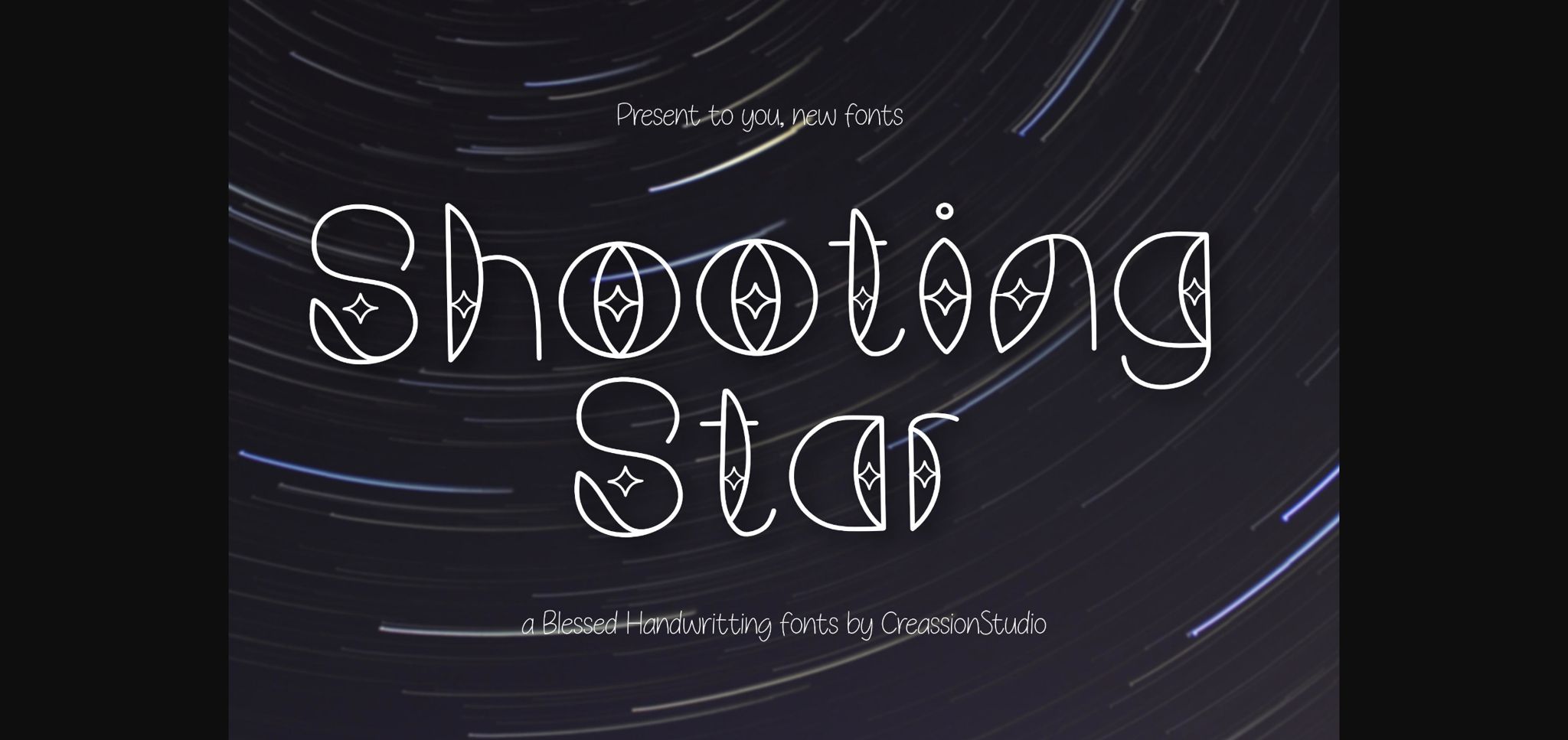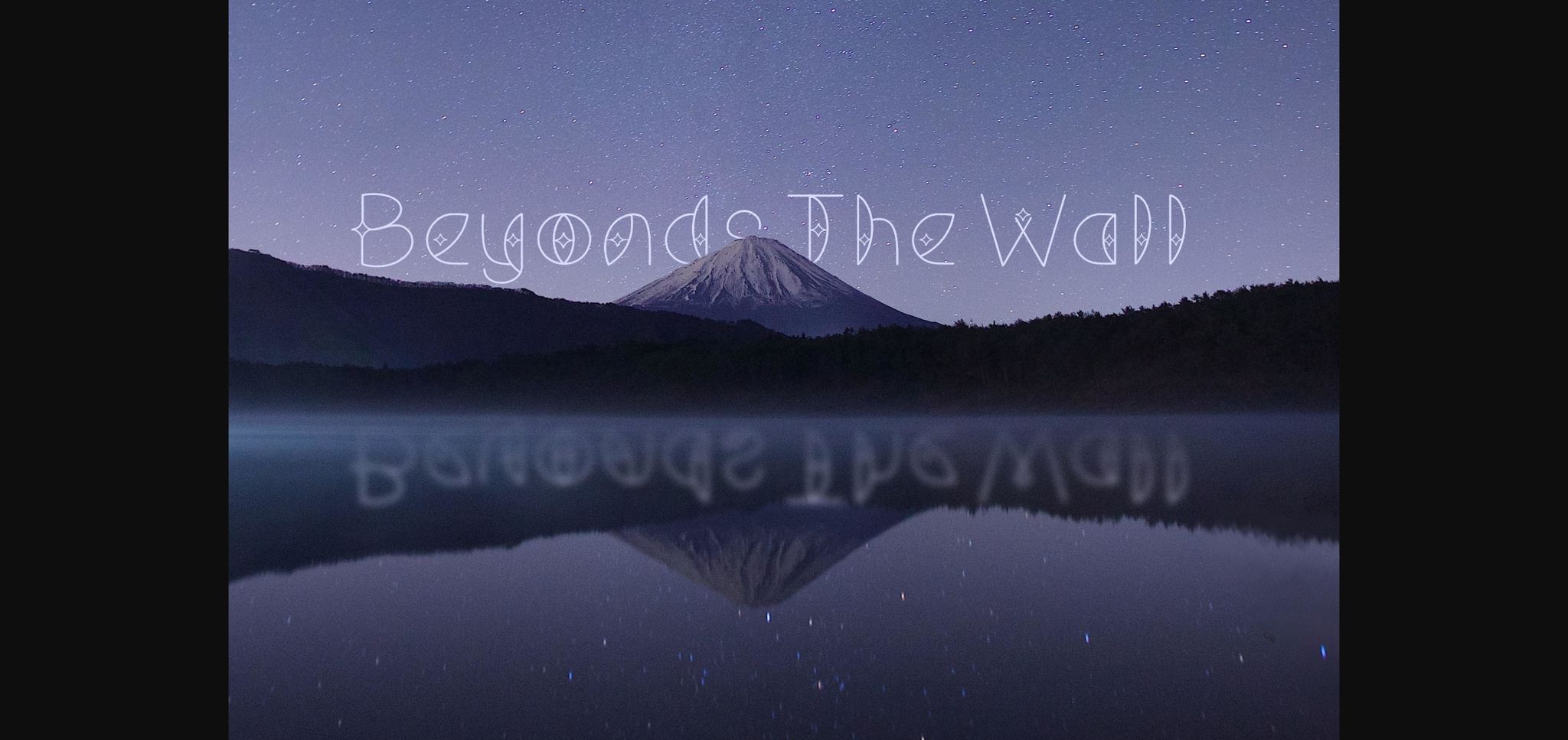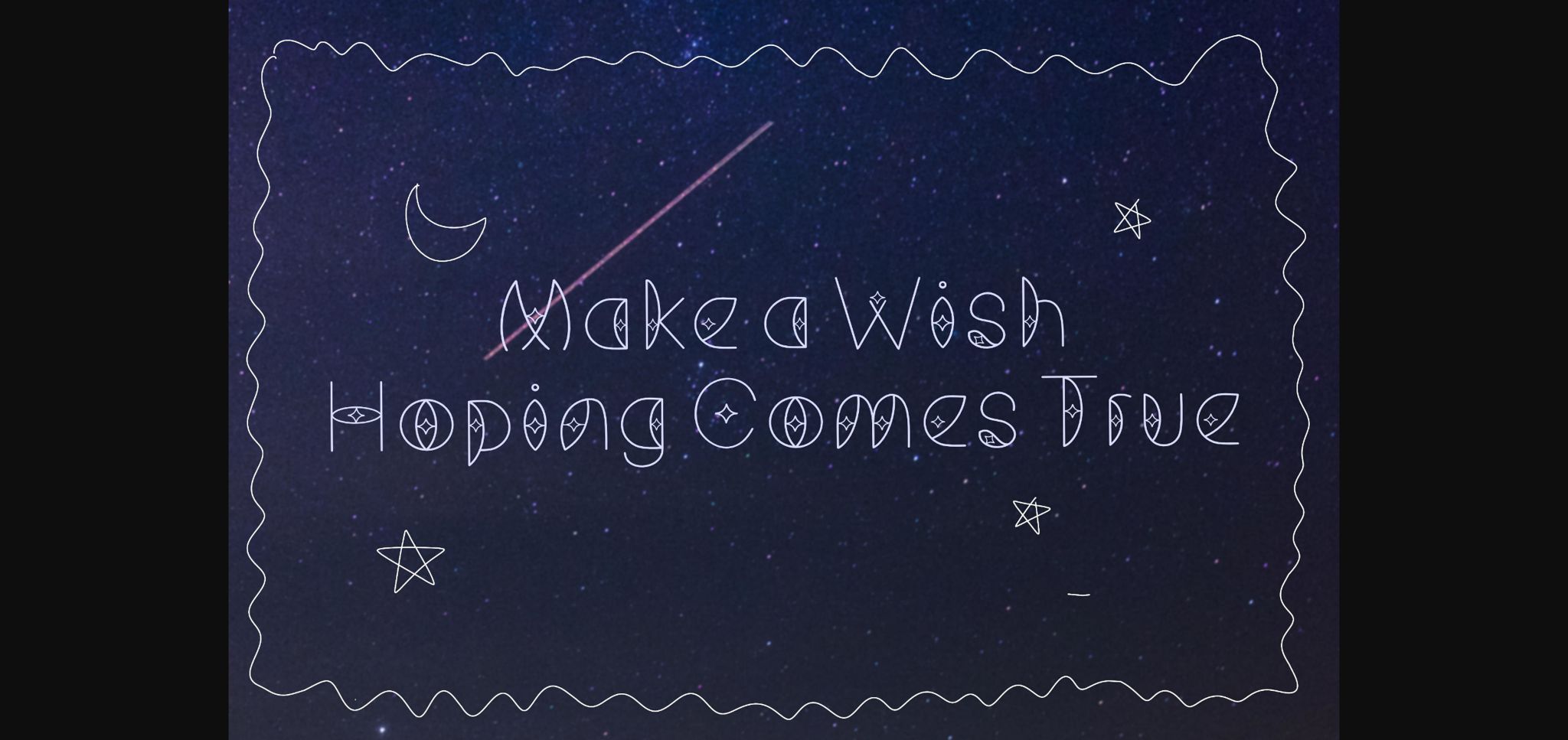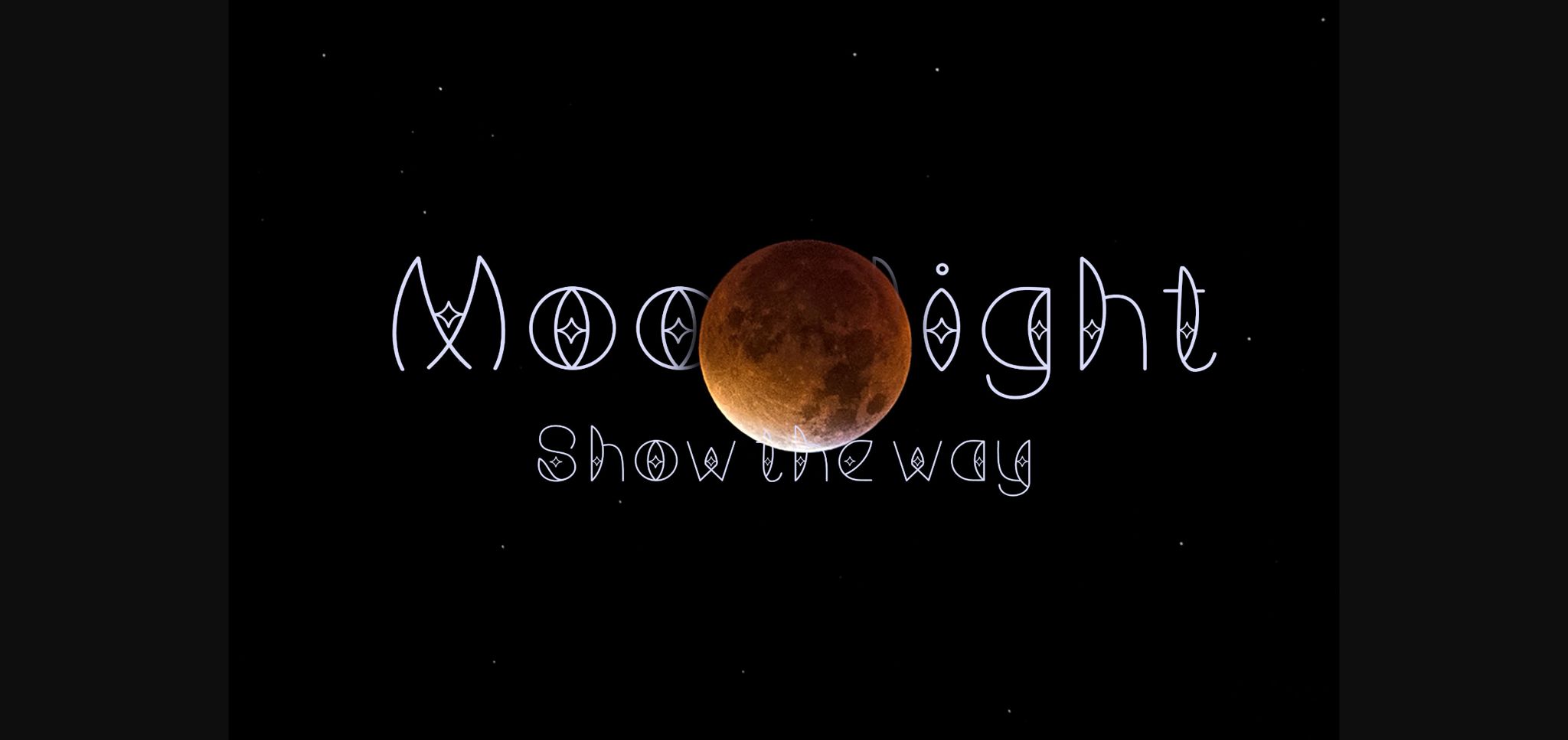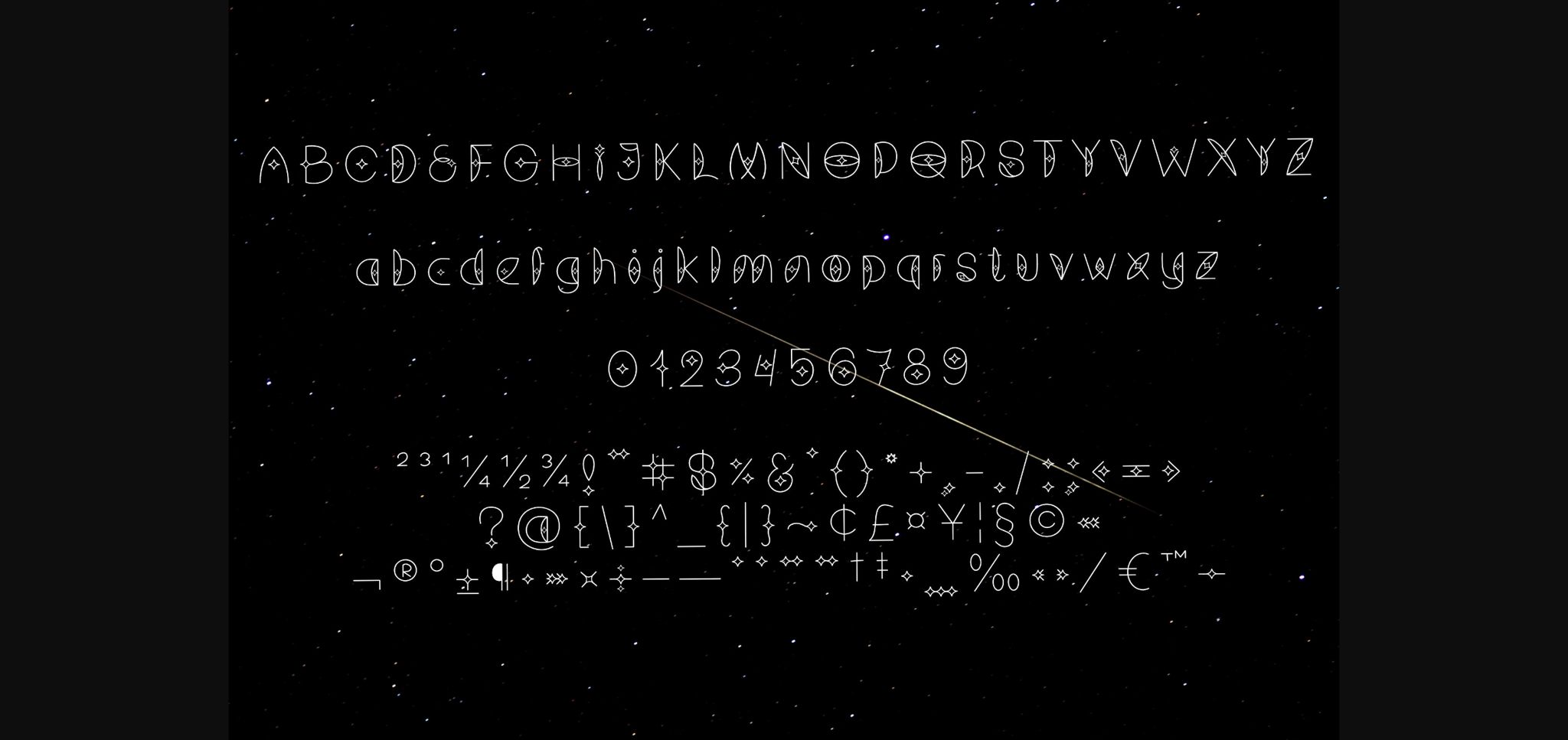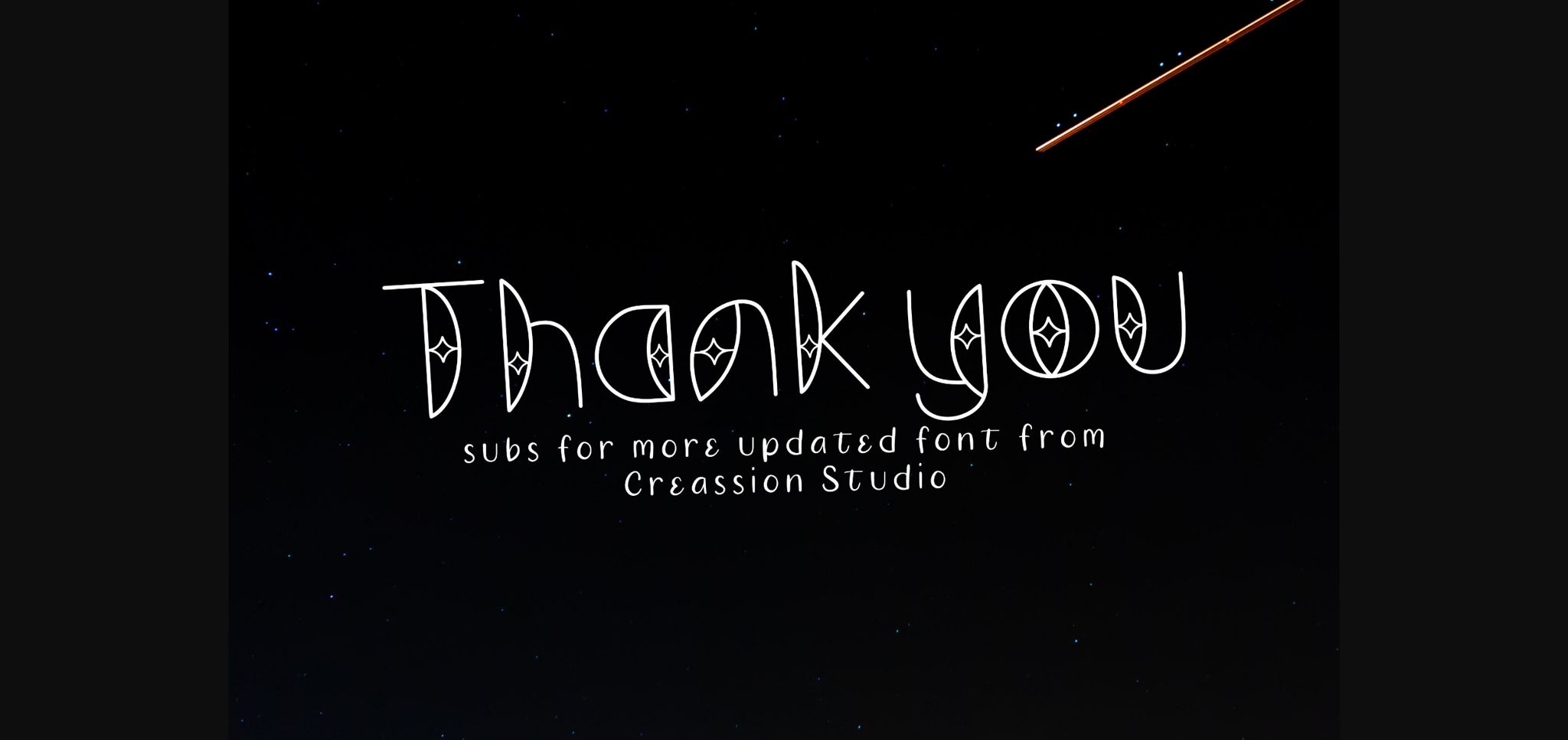
Shooting Star Font
About Shooting Star Font
Shooting star is a simple and thin lettered sans serif font. Suitable to complete your awesome magazine title, text logo, subtext, or any of your spectacular designs. So add this font to your creative design and notice how it make them stand out.